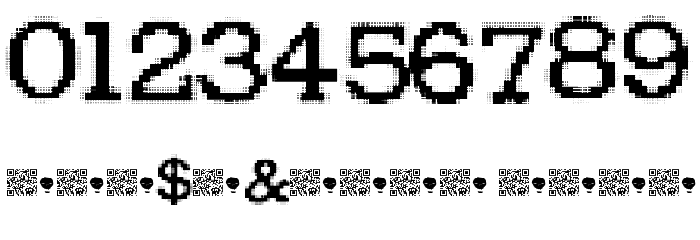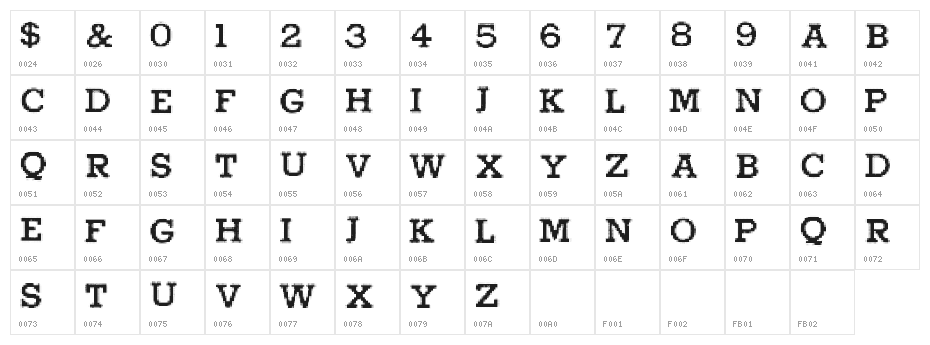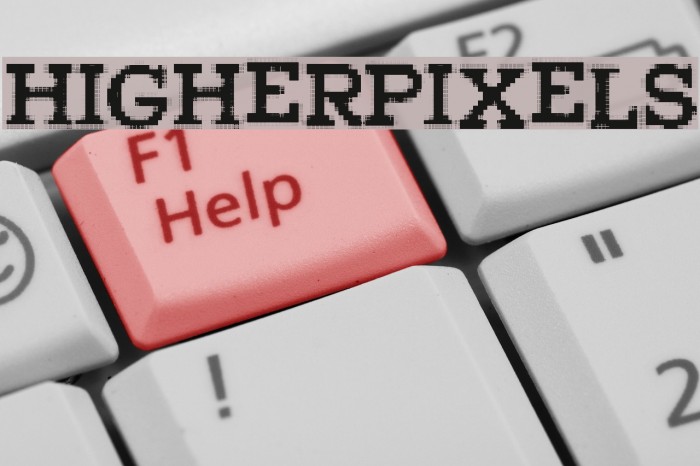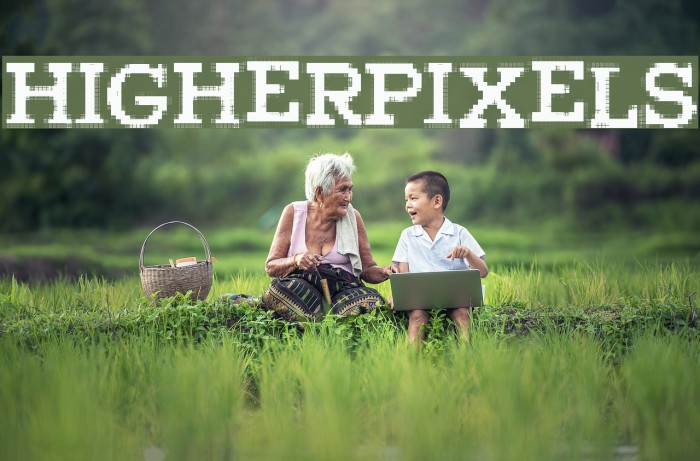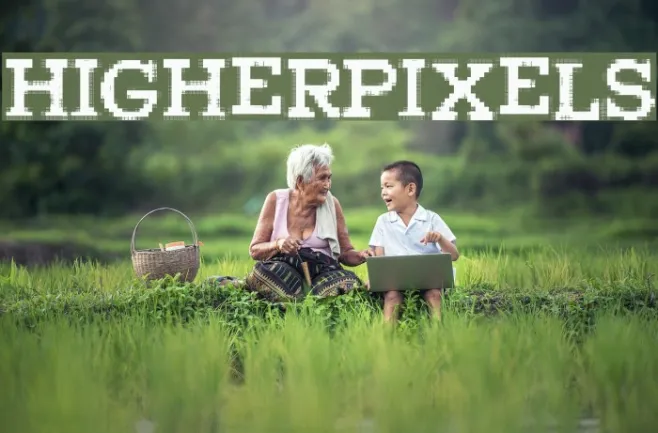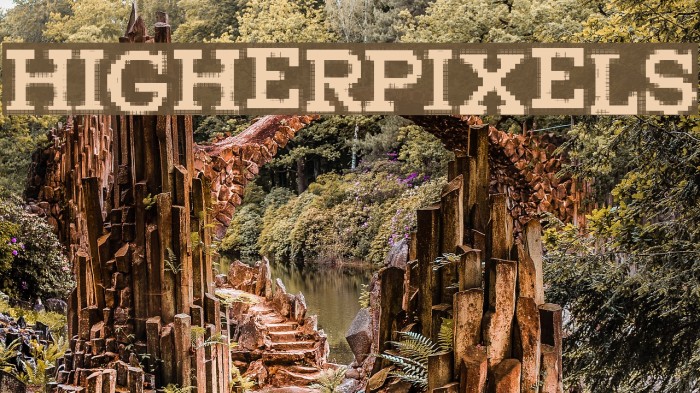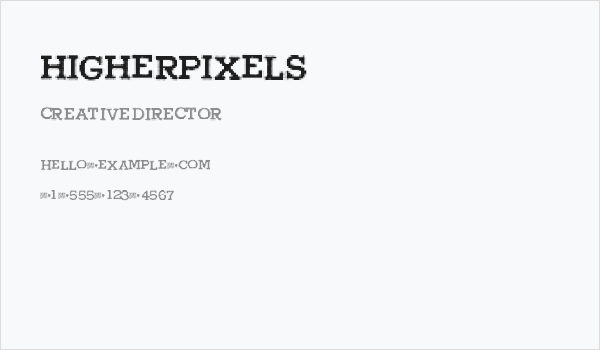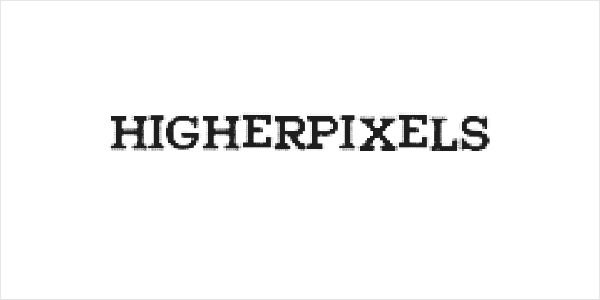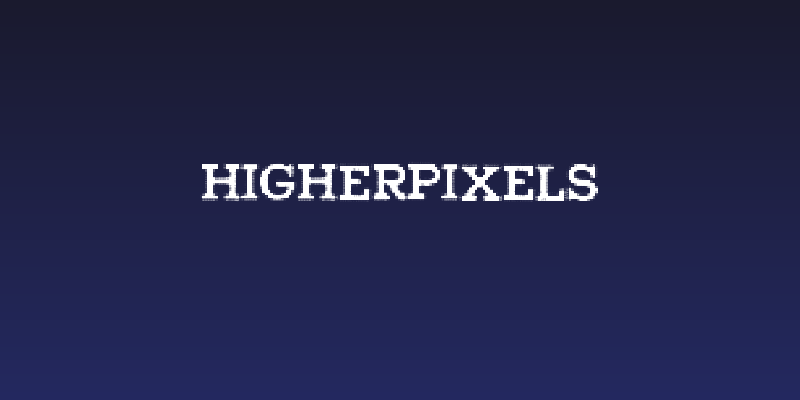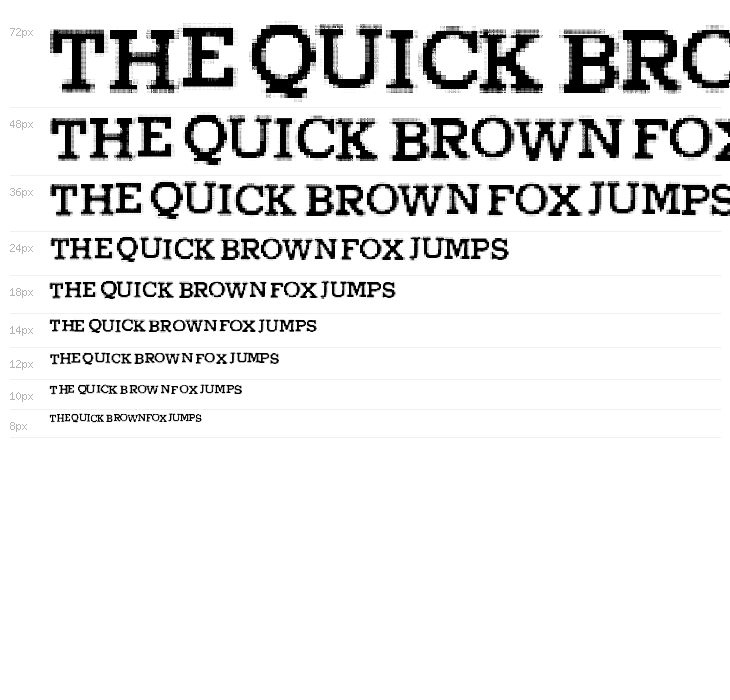
HigherPixels Font
HigherPixels Description
This font features a bold, pixelated style reminiscent of early digital typefaces. Each character is constructed with a grid-like structure, giving it a distinct, retro digital appearance. The uppercase letters are prominent and blocky, while the lowercase letters maintain a consistent pixelated form. Numbers and special characters follow the same design, ensuring uniformity across all glyphs. The font's unique style makes it stand out, capturing the essence of vintage computing and digital art. Its boldness and pixelated texture make it suitable for projects that require a nostalgic or tech-inspired aesthetic.